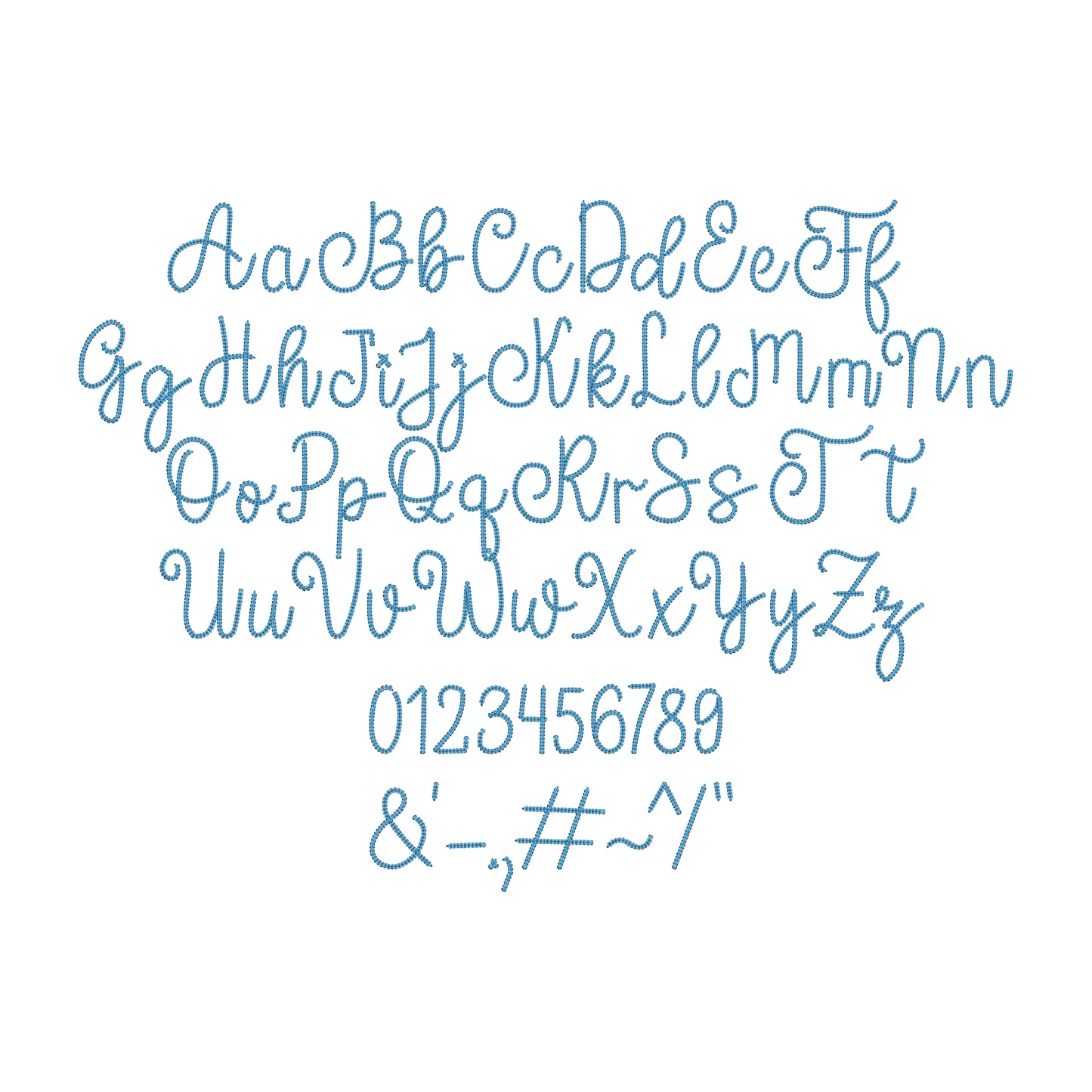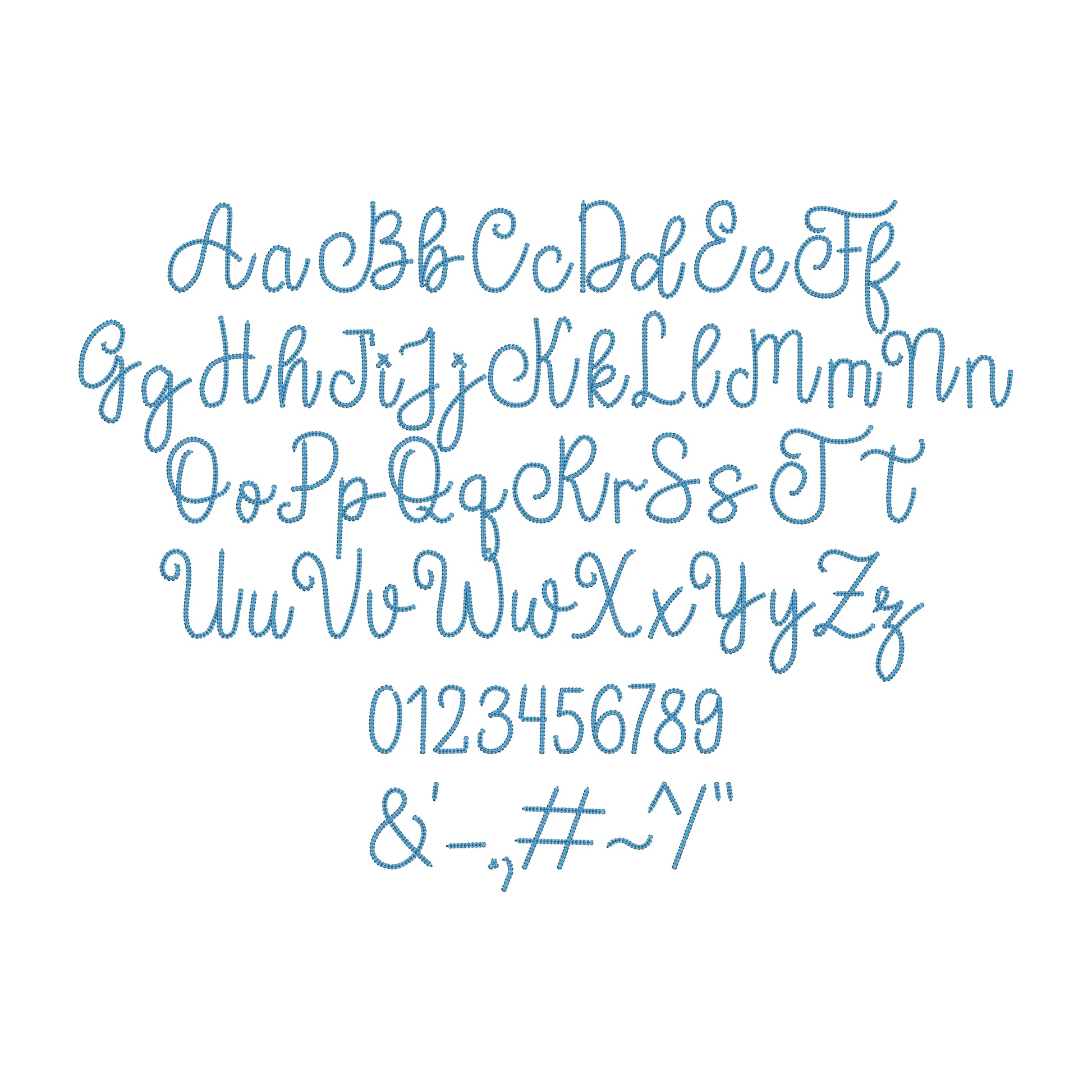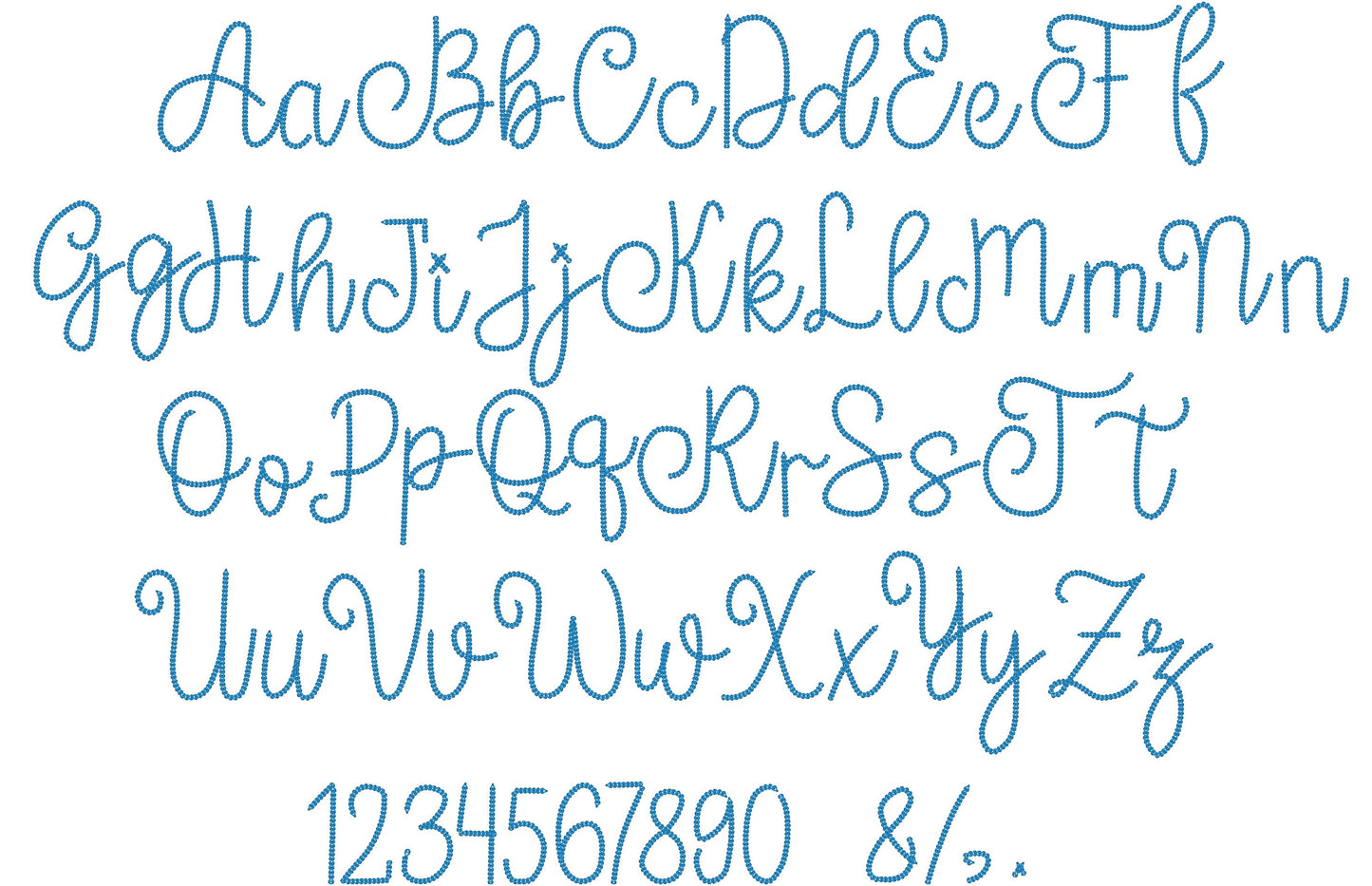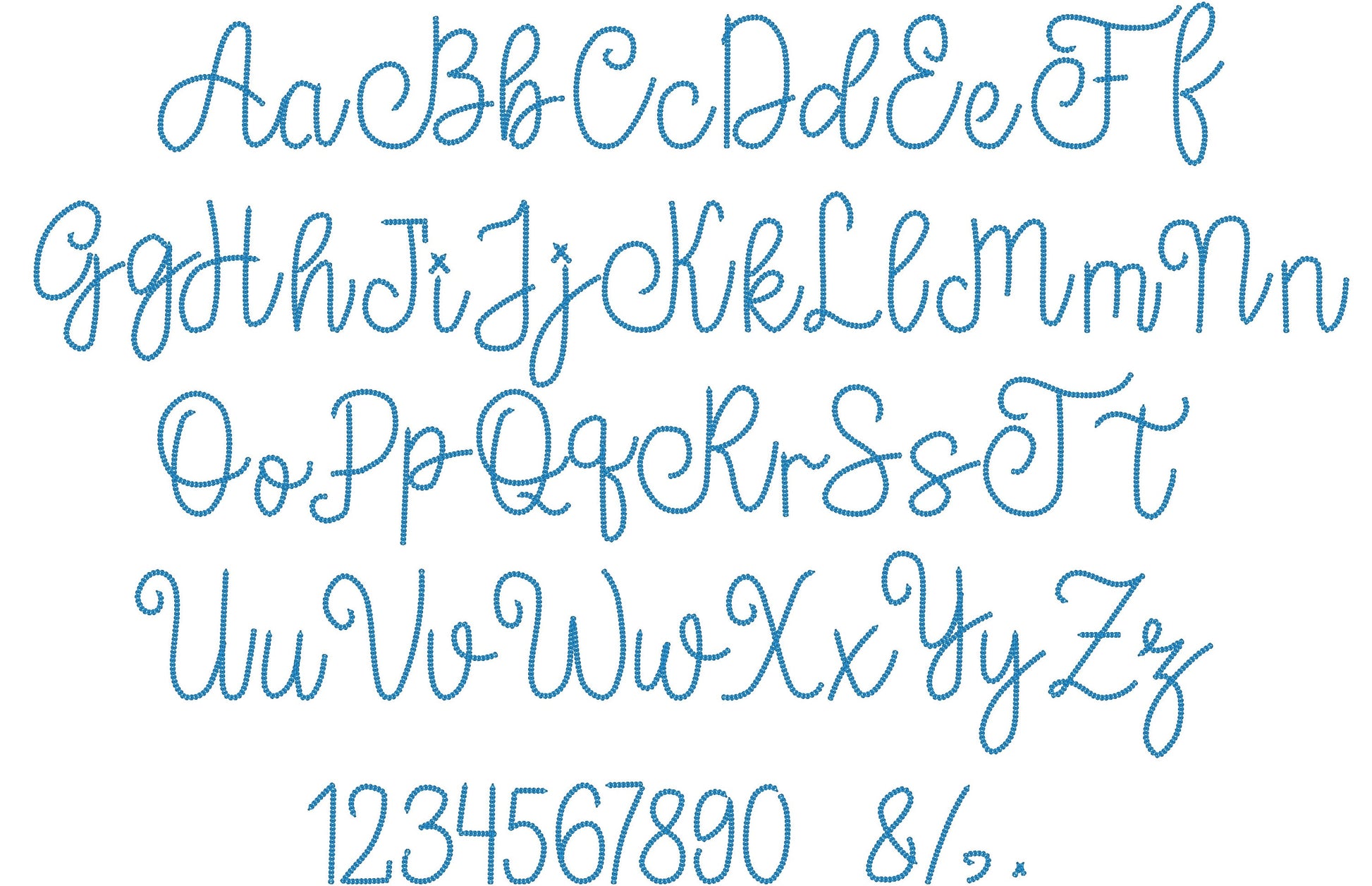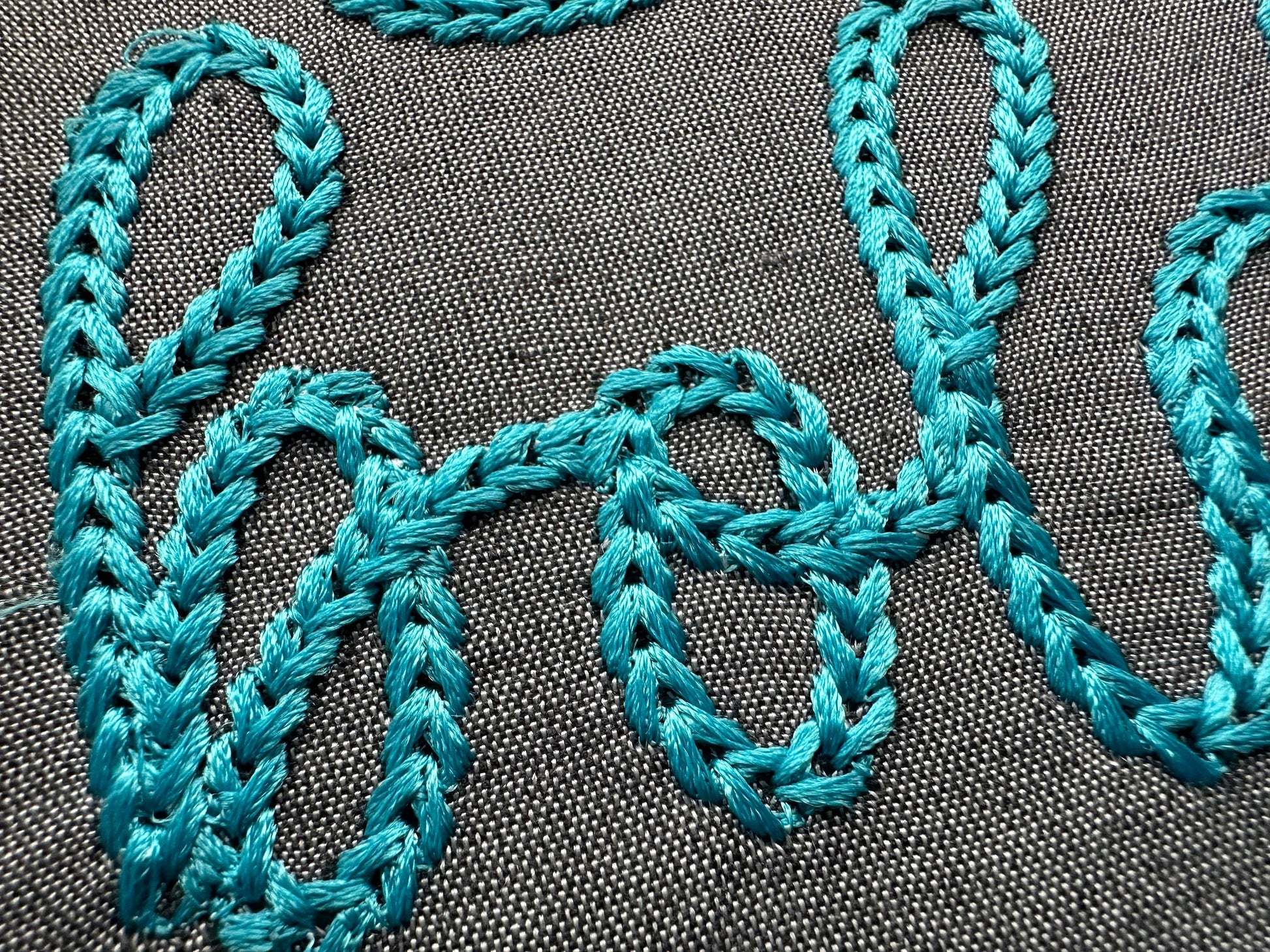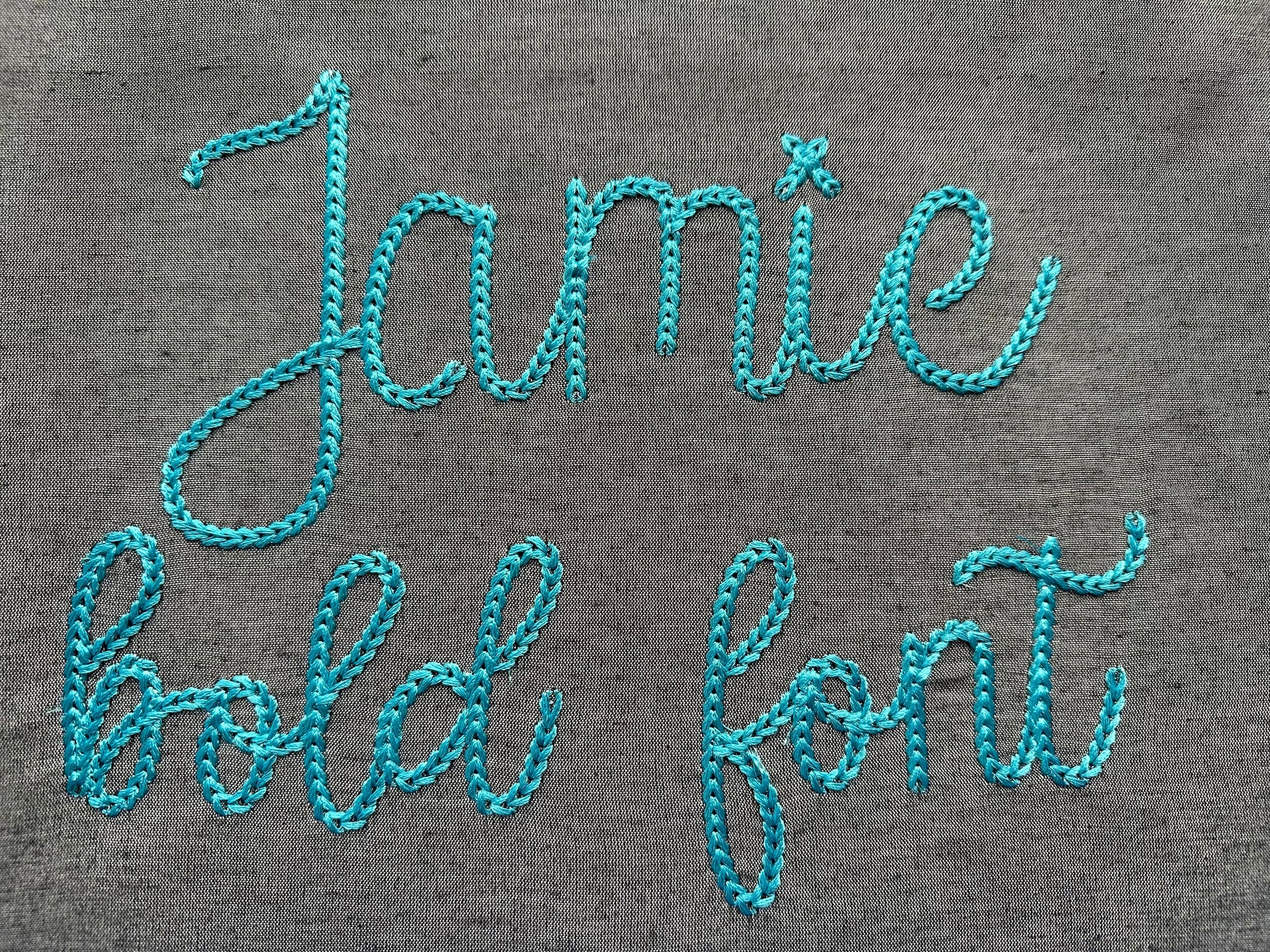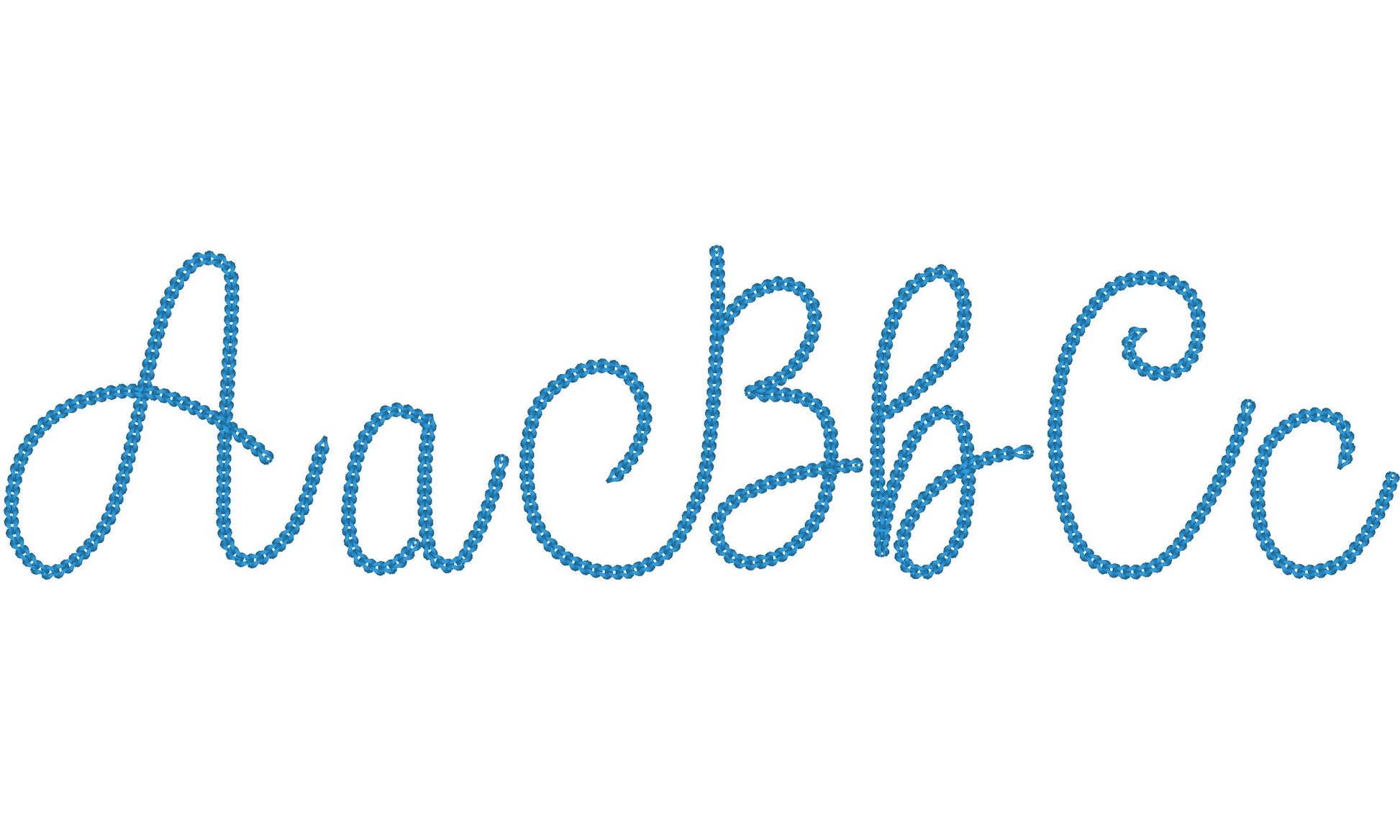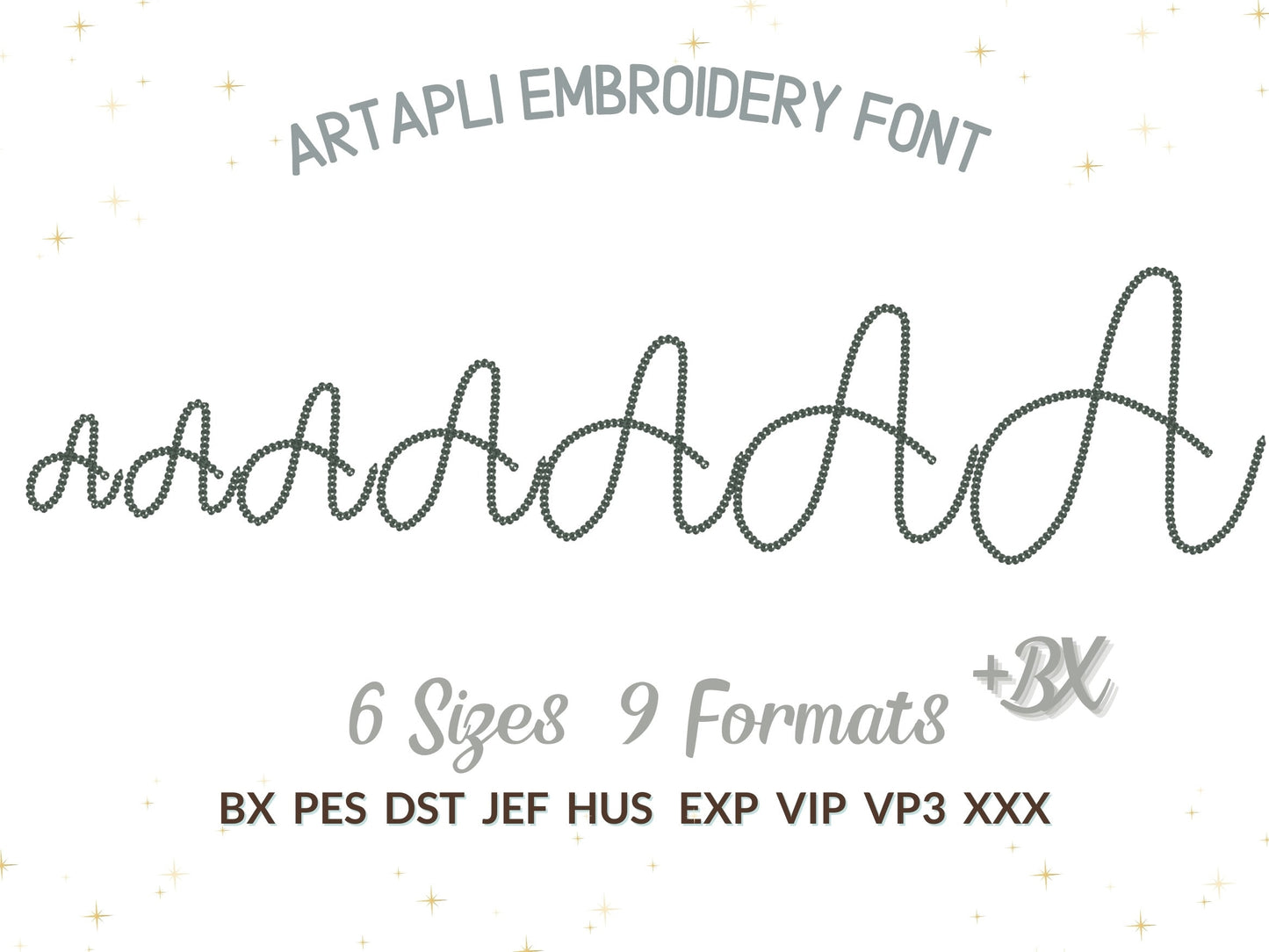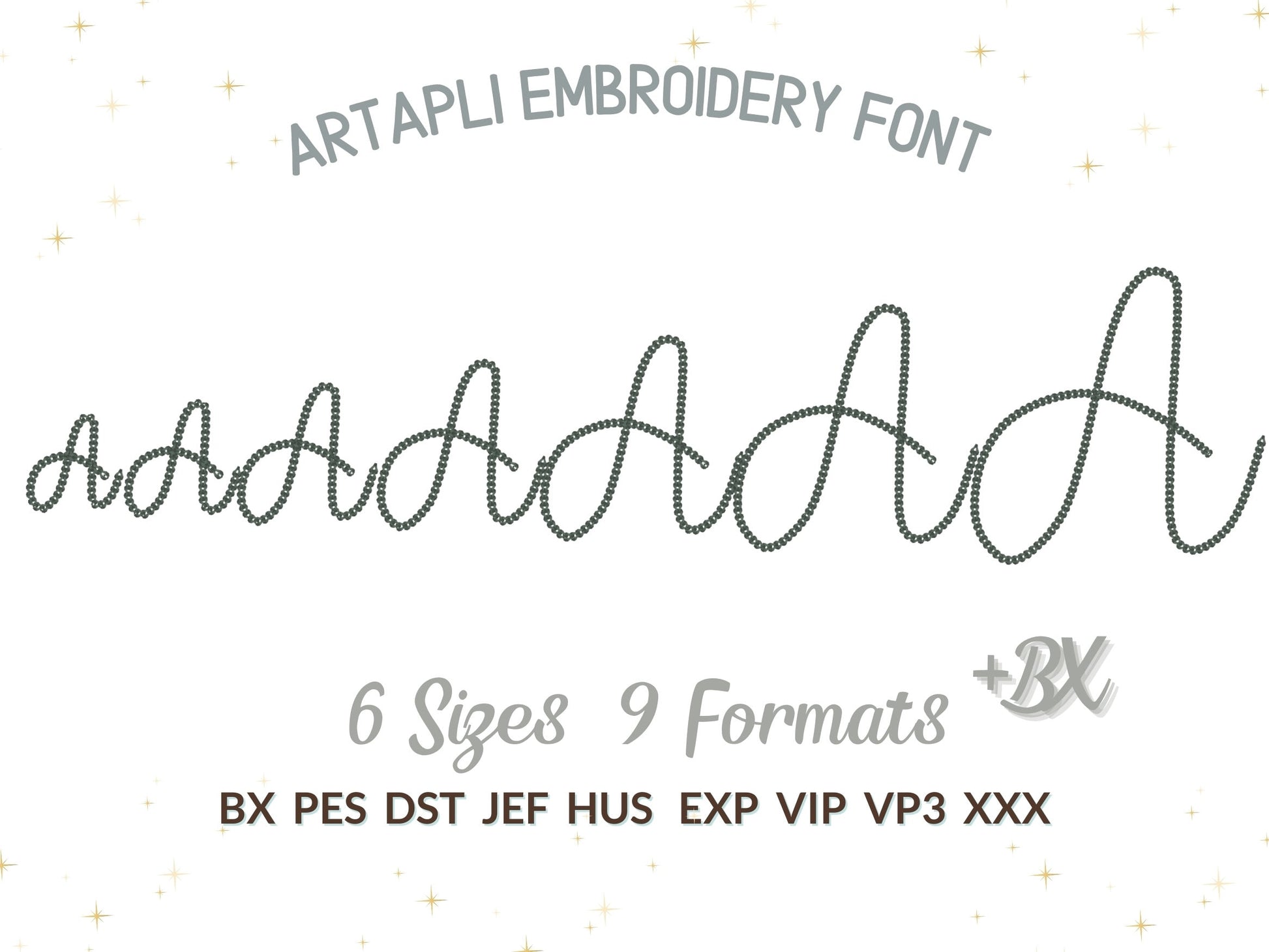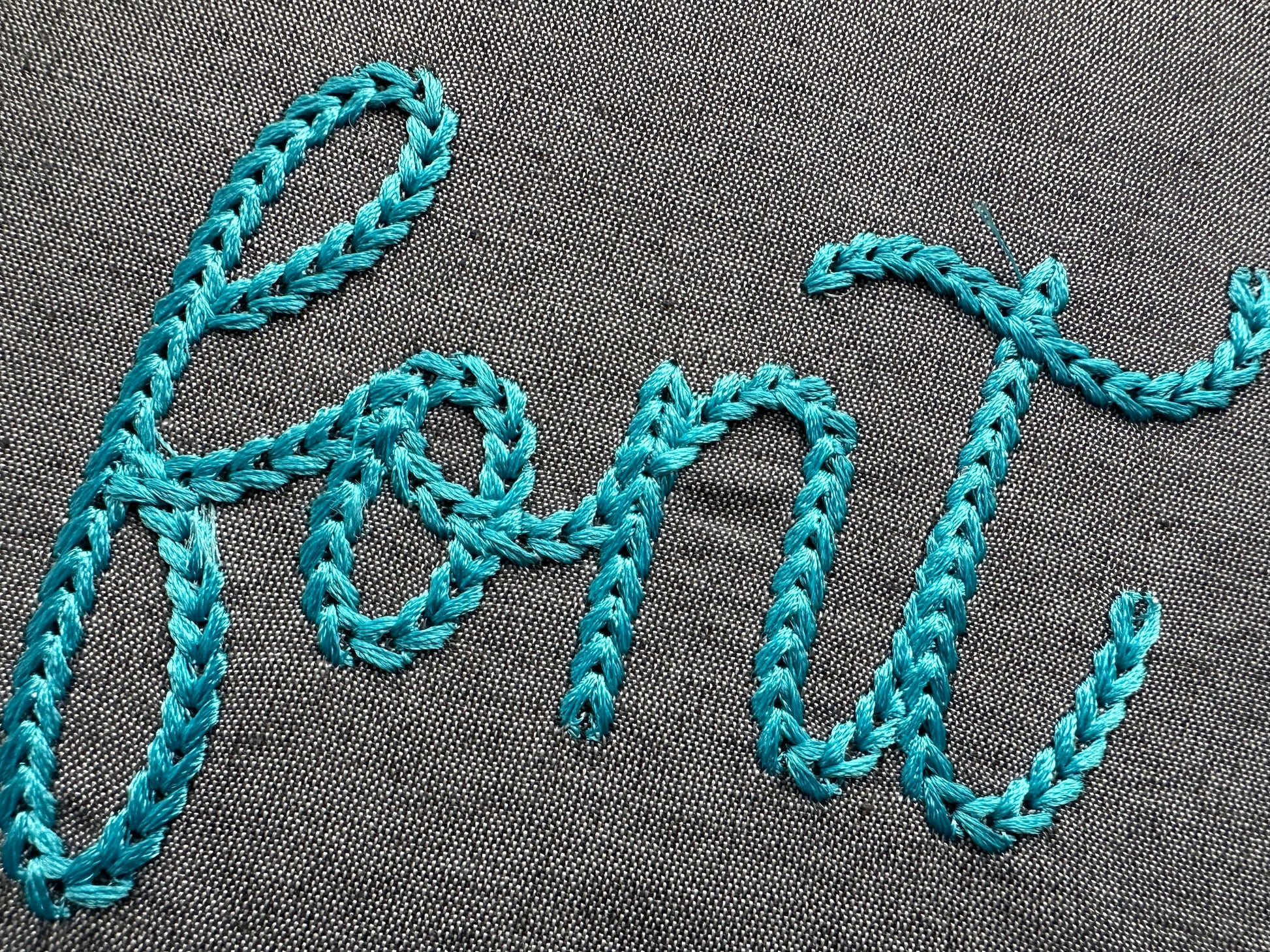
Or click to open the linkA bold, dense chain stitch font with a hand-knit sweater look. Cozy for names on sweaters, beanies, blankets and gifts.
The letters come in seven sizes: 2, 2.5, 3, 3.5, 4, 5 and 6 inches. A thick, dense chain stitch makes the letters look handmade and knitted. Includes uppercase and lowercase letters, numbers 0 to 9 and punctuation.